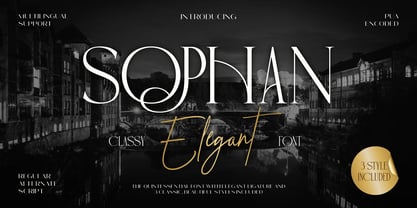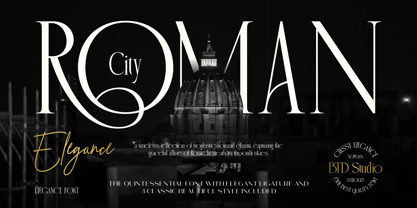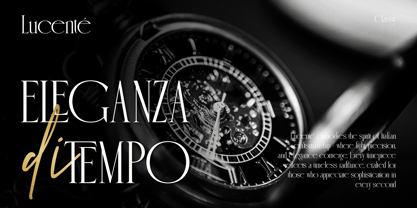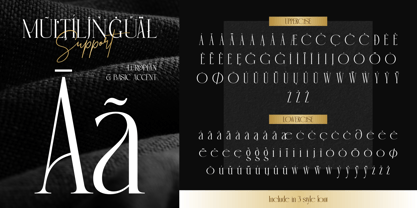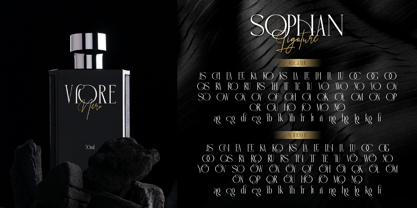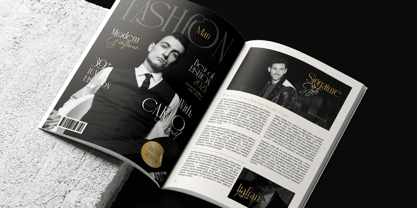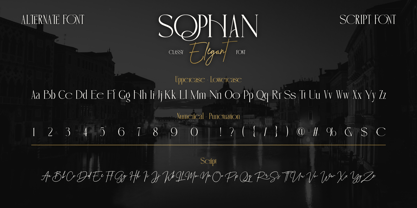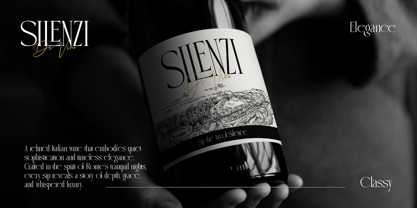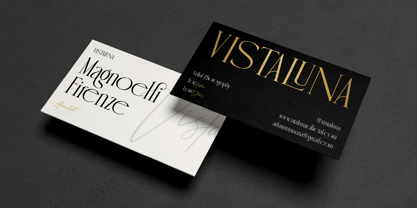
Sophan Elegant
The Sophan Elegant Font Family was designed by Eric Kurniawan and published by Burntilldead. Sophan Elegant contains 3 styles and family package options. More about this family
Introducing Sophant Elegant — a refined typeface that embodies timeless sophistication and modern grace. Designed with exquisite ligatures and smooth curves, Sophan brings a touch of luxury to every word you create. This font family includes three stunning styles — Regular, Alternate, and Script — perfectly balanced for high-end branding, editorial designs, logo projects, or elegant packaging. Its delicate serifs and graceful letterforms evoke the charm of European classic typography, wrapped in a contemporary feel. From fashion magazines to boutique logos, Sophan Elegant elevates your design with a whisper of class and a statement of style.